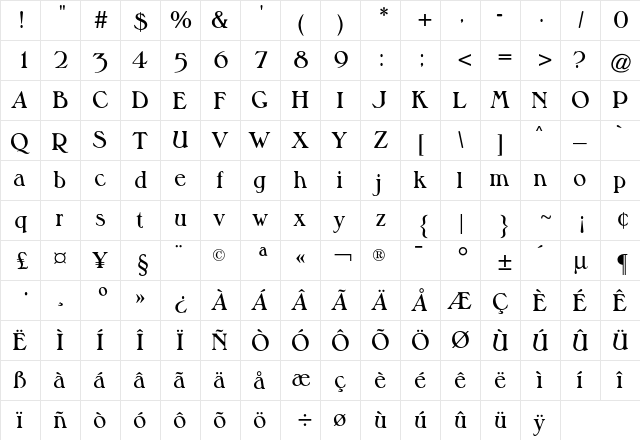
Musketeer CG DemiBold Regular
Design Context for Musketeer CG DemiBold Typeface
Musketeer CG DemiBold offers clean, dependable letterforms without strong stylistic allegiance, making it a practical choice for designers who need flexibility. The heavy weight commands attention and anchors typographic hierarchies.